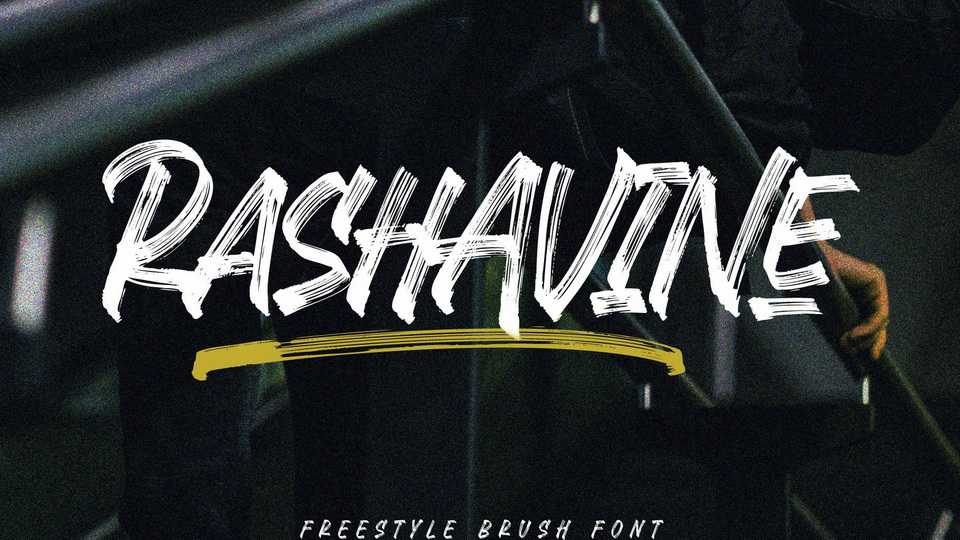
Download Rashavine font, a freestyle brush typeface made with the high attention of the brush details. Rashavine font has the feel of energic, which challenges you to create a powerful design and fast!